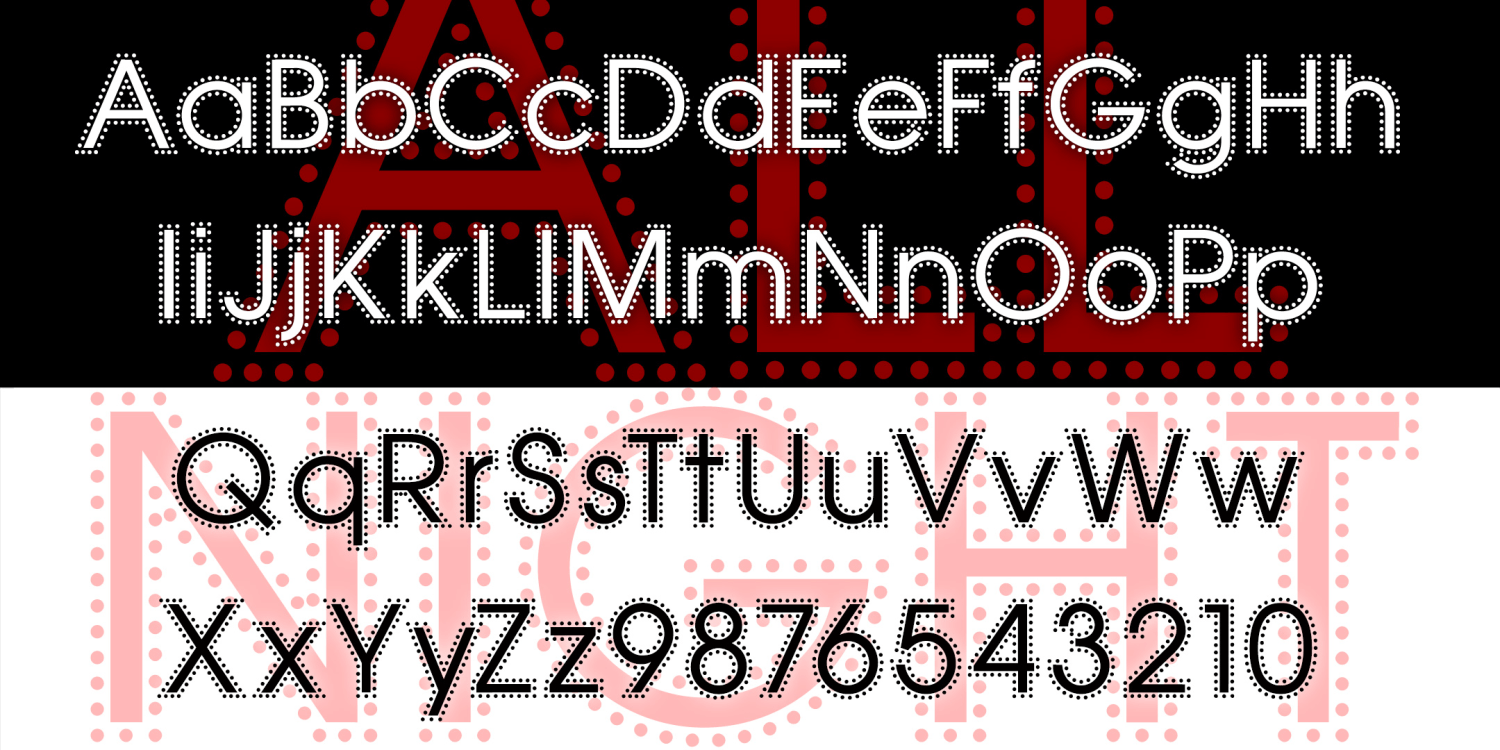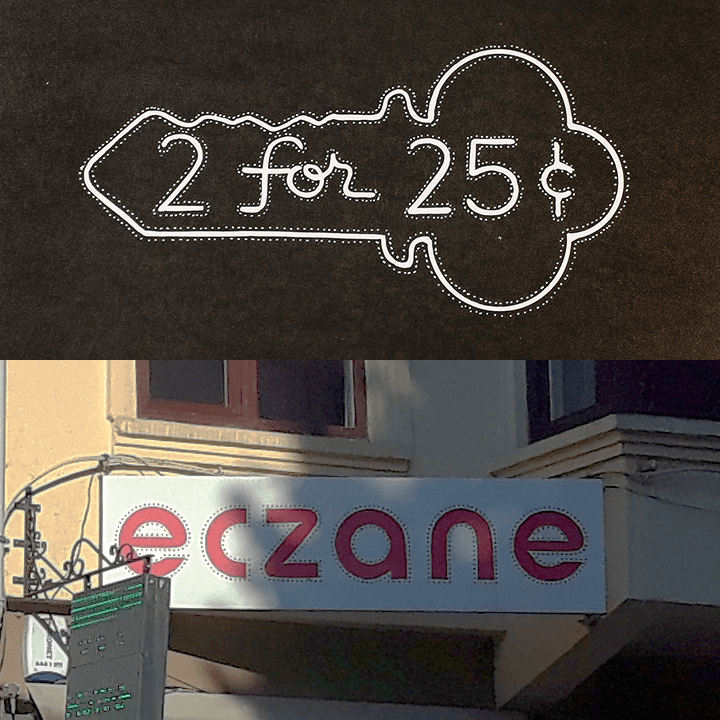
All Night
ALL NIGHT is a geometric sans serif with a twist: the characters are all bordered by a line of little dots giving them an eye-catching "glow." All Night was inspired by an example in a 1950s guide to hand lettering and a shop sign in Turkey.